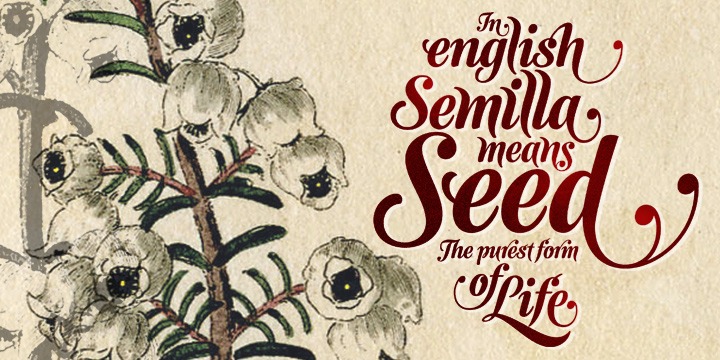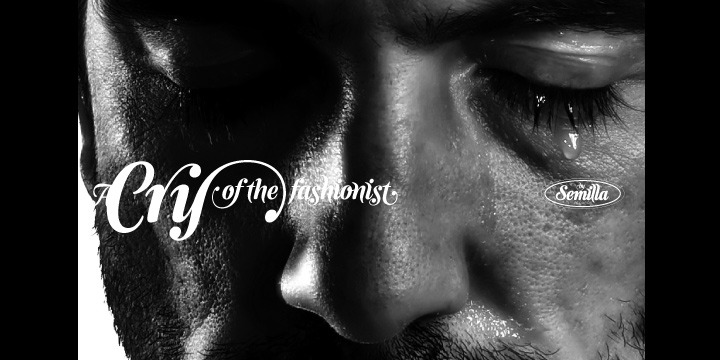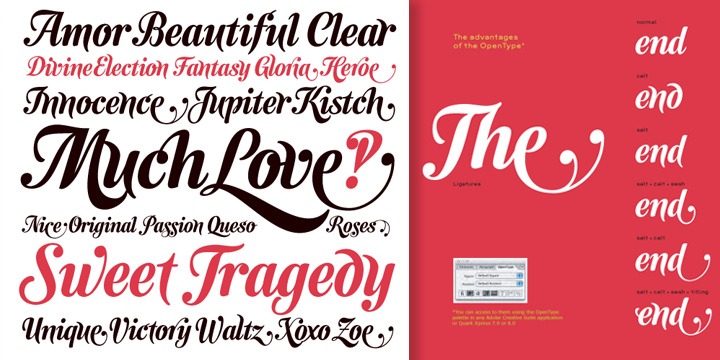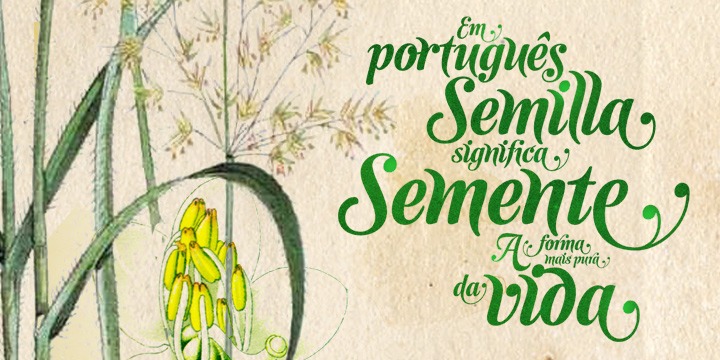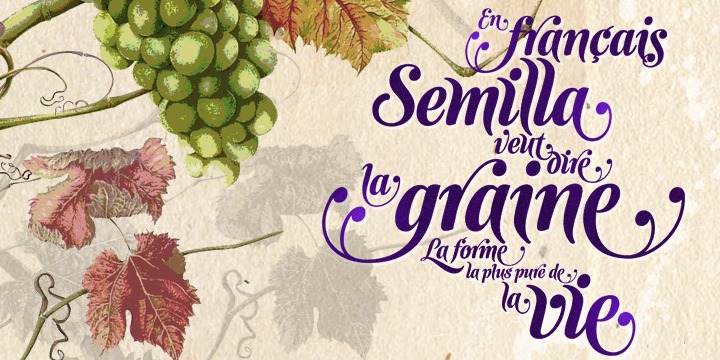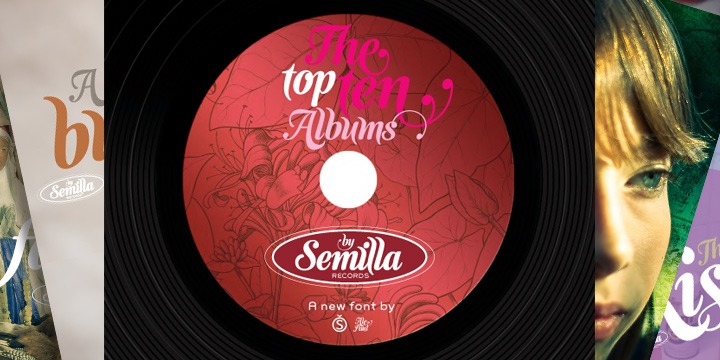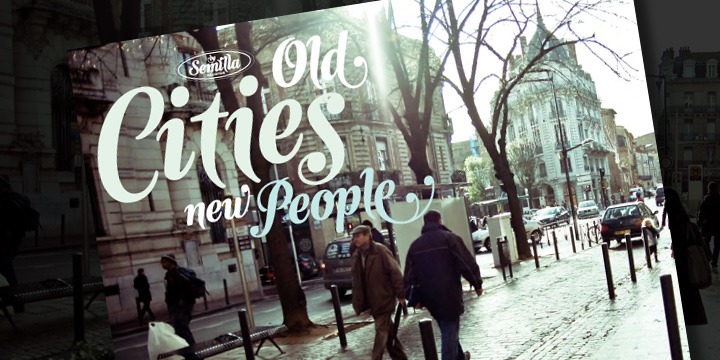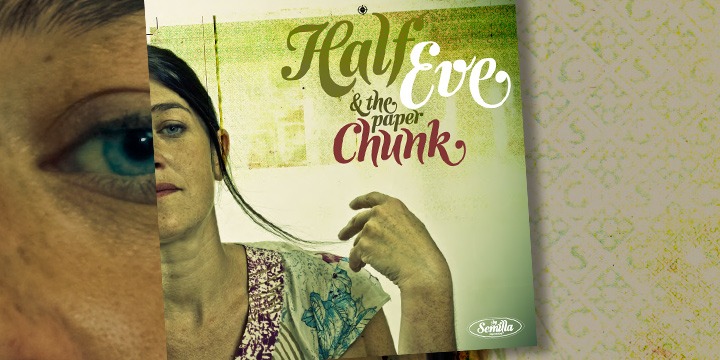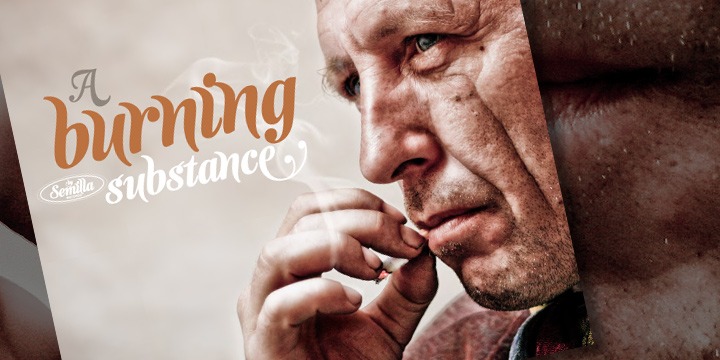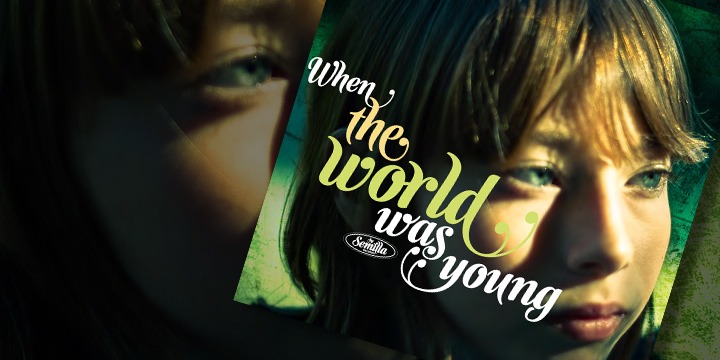
Semilla
When you spend so much time researching and studying a subject, you become very focused, directionally and objectively. But of course some of the research material you run into turns out to be tangential to whatever your focus happens to be at the time, so you absorb what you can from it, then shelf it ? like the celebrity bobblehead that amused you for a while, but is now an almost invisible ornament eating dust and feathers somewhere in your environment.
And just like the bobblehead may fall off the shelf one day to remind you of its existence, some of my lettering research material unveiled itself in my head one day for no particular reason.
Hand lettering is now mostly perceived as an American art. Someone with my historical knowledge about lettering may be snooty enough to go as far as pointing out the British origins of almost everything American, including lettering ? but for the most part, the contemporary perspective associates great lettering with America. The same perspective also associates blackletter, gothics and sans serifs with Germany.
So you can imagine my simultaneous surprise and impatience when, in my research for one of my American lettering-based fonts, I ran into a German lettering book from 1953, by an artist called Bentele. It was no use for me because it didn't propel my focus at that particular time, but a few months ago I was marveling at what we take for granted ? the sky is blue, blackletter is German, lettering is American ? and found myself flipping through the pages of that book again.
The lettering in that book is upbeat and casual sign making stuff, but it has a slightly strange and youthful experimentation at its heart. I suppose I find it strange because it deviates a lot from the American stuff I'm used to working with for so long now. To make a long story short, what's inside that German book served as the semilla, which is Spanish for seed, for the typeface you see all over these pages.
With Semilla, my normal routine went out the window. My life for a while was all Bezier all the time. No special analog or digital brushes or pens were used in drawing these forms. They're the product of a true Bezier process, all starting with a point creating a curve to another point, which draws a curve to another point, and so on. It's a very time-consuming process, but at the end I am satisfied that it can get to pretty much the same results easier and more traditional methods accomplish.
And as usual with my fonts, the OpenType is plenty and a lot of fun. Experimenting with substitution and automation is still a great pleasure for me. It is the OpenType that always saves me from the seemingly endless work hours every type designer must inevitably have to face at one point in his career.